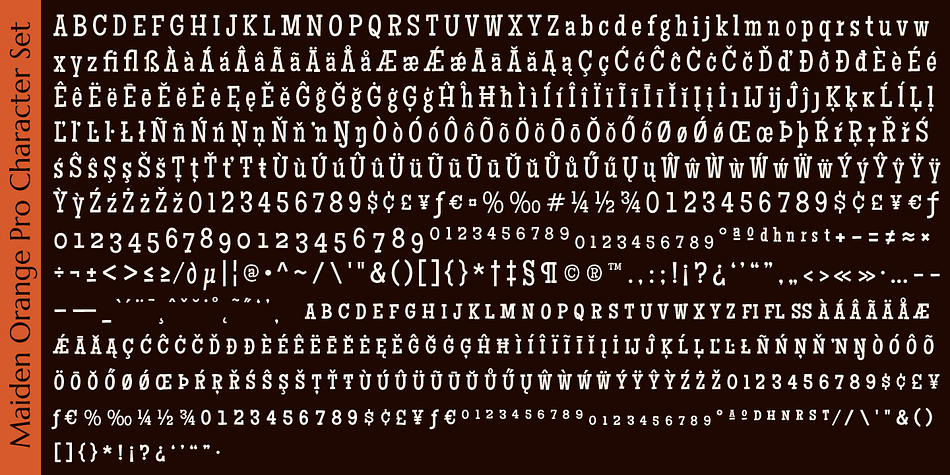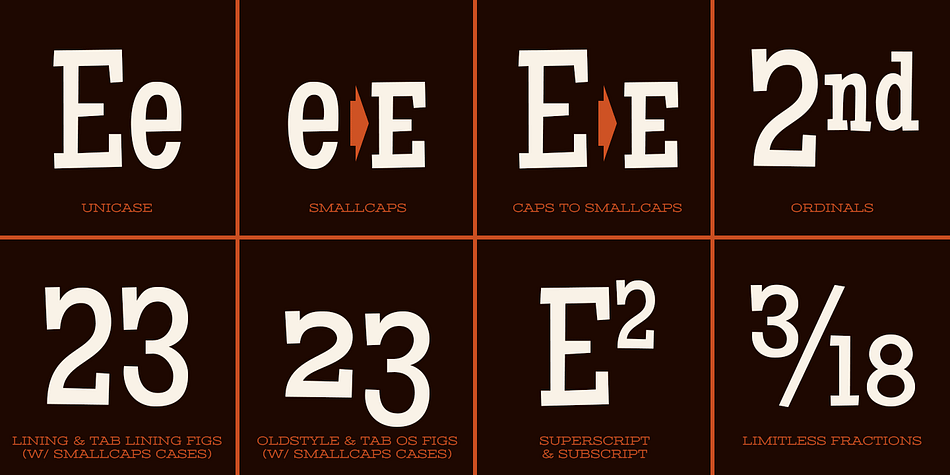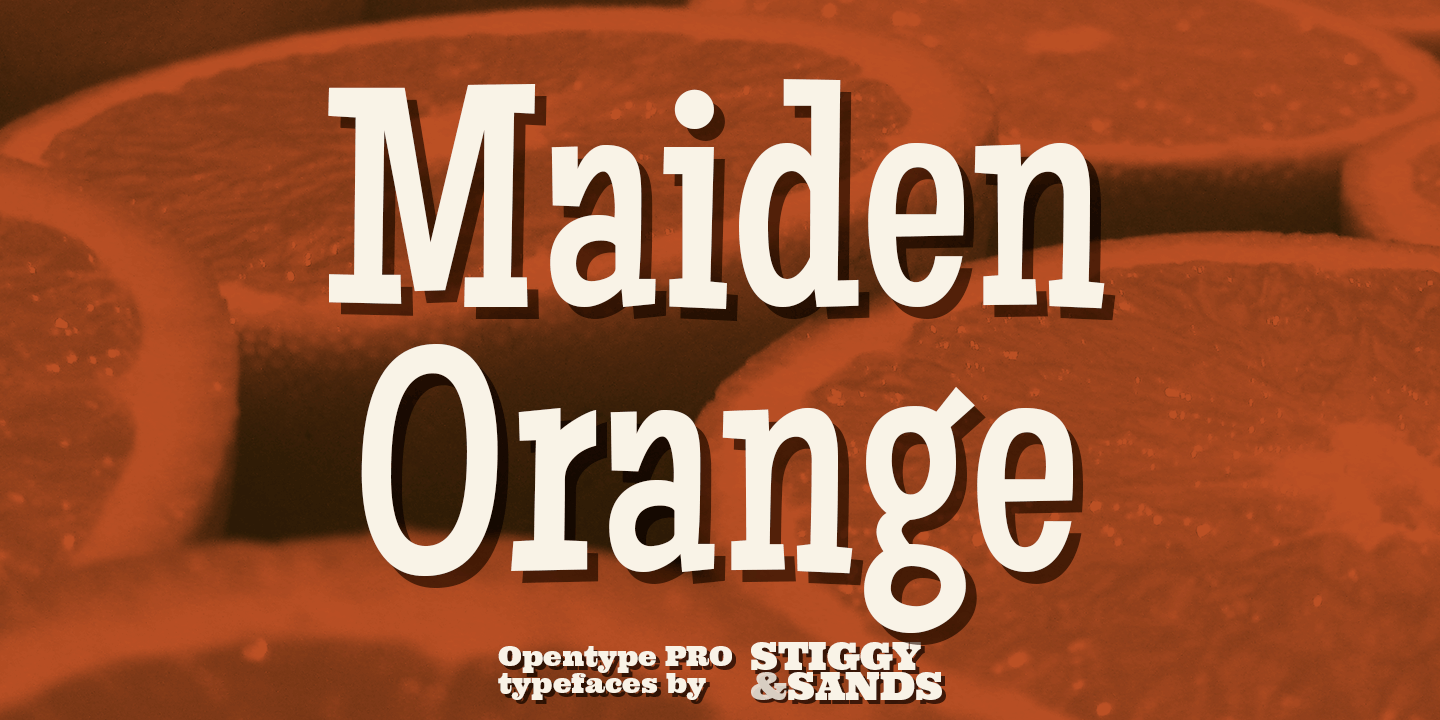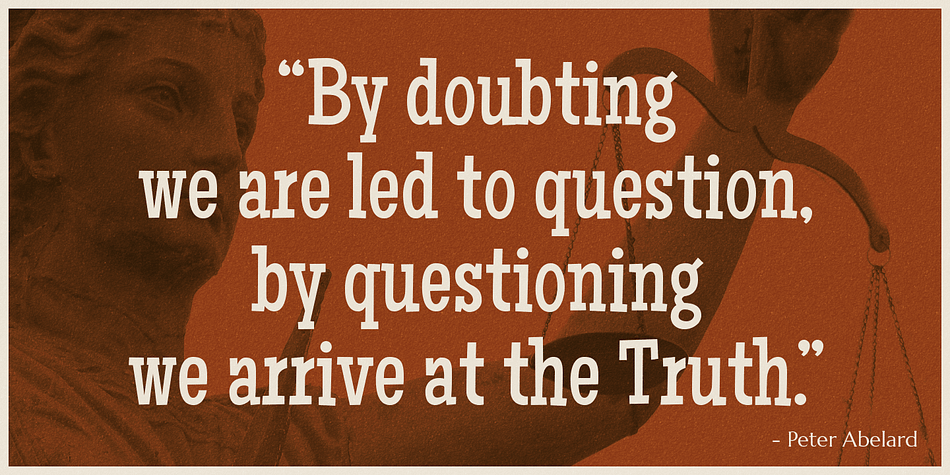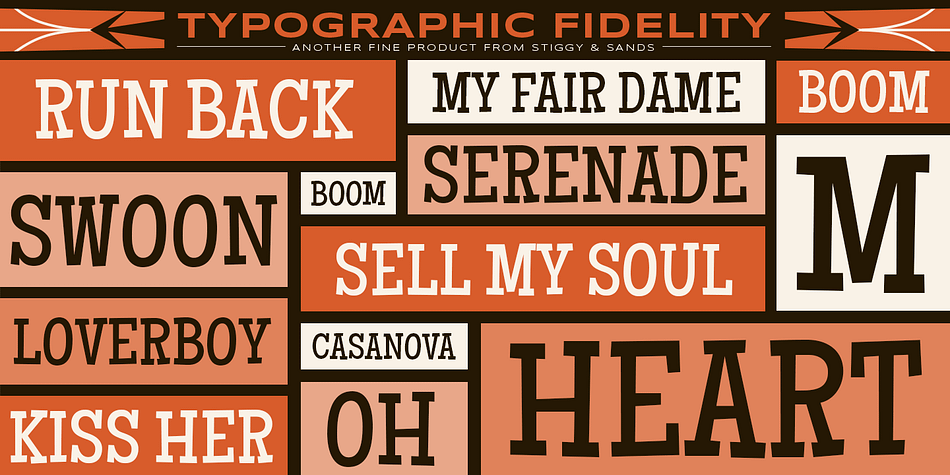
Designed by Jim Lyles and Brian J. Bonislawsky, Maiden Orange Pro is a hand display slab font published by Stiggy & Sands.
Maiden Orange Pro is a light and festive slab serif font inspired by custom hand lettered 1950’s advertisements. Clean and legible, while also being offbeat and friendly, this font lends itself to a wide variety of uses.
The SmallCaps and extensive figure sets offer a slightly more serious tone as well as a wider range of design use.